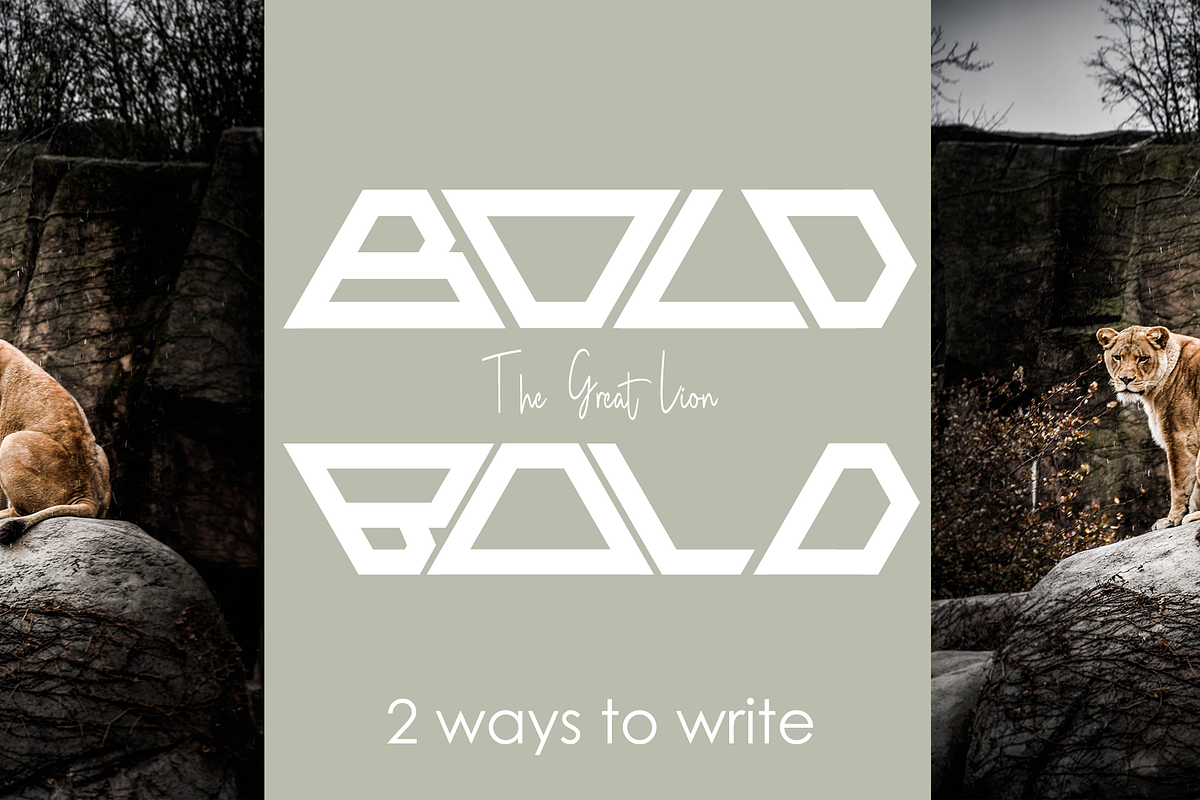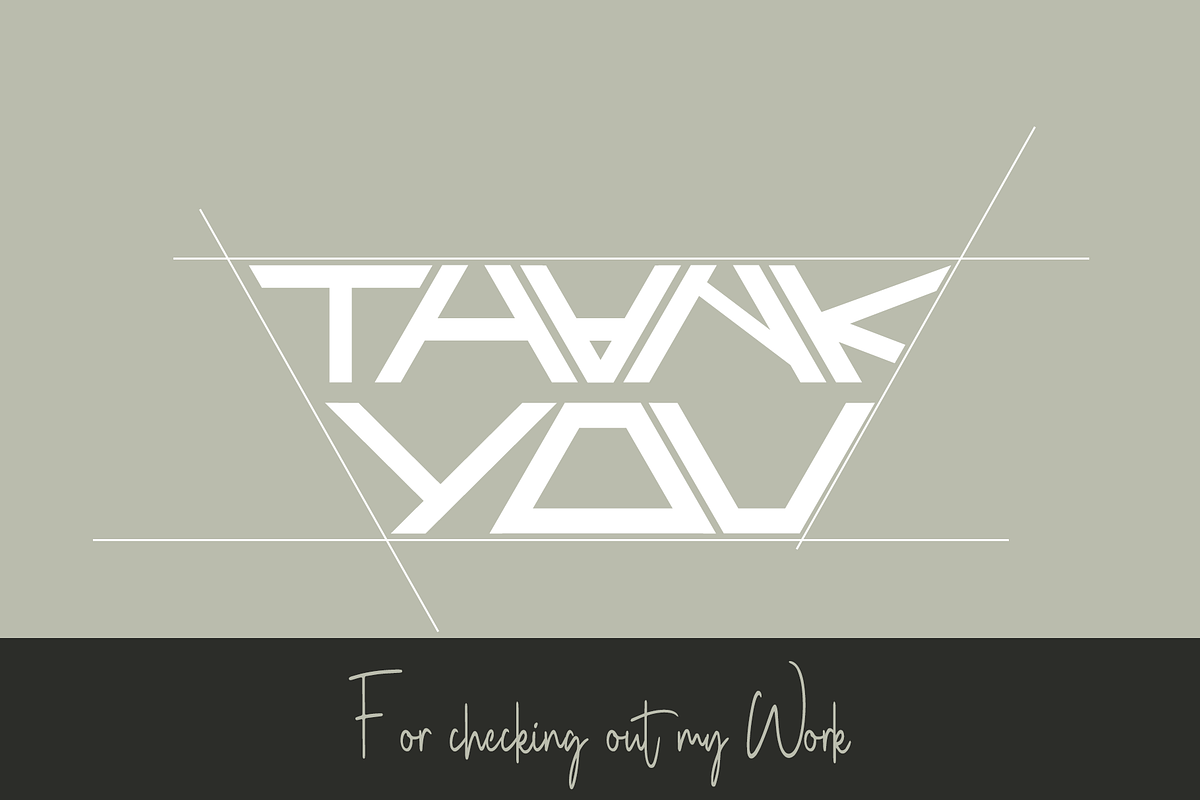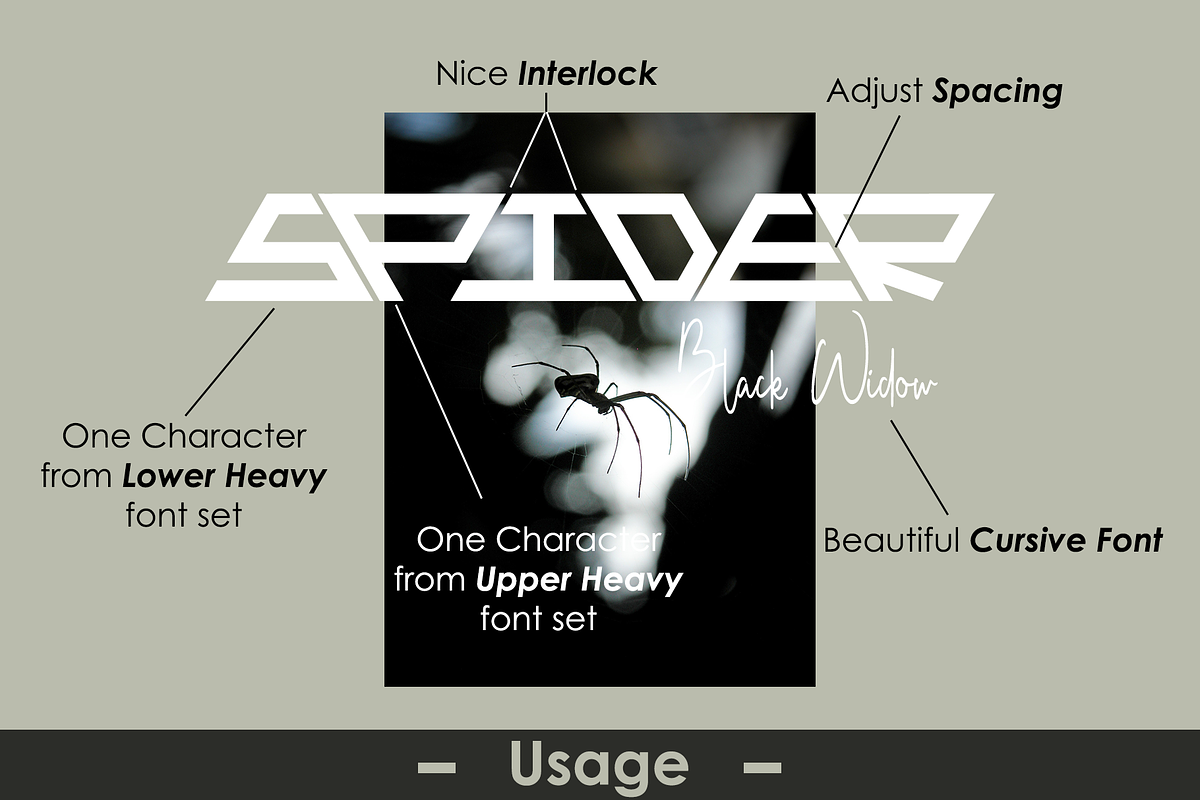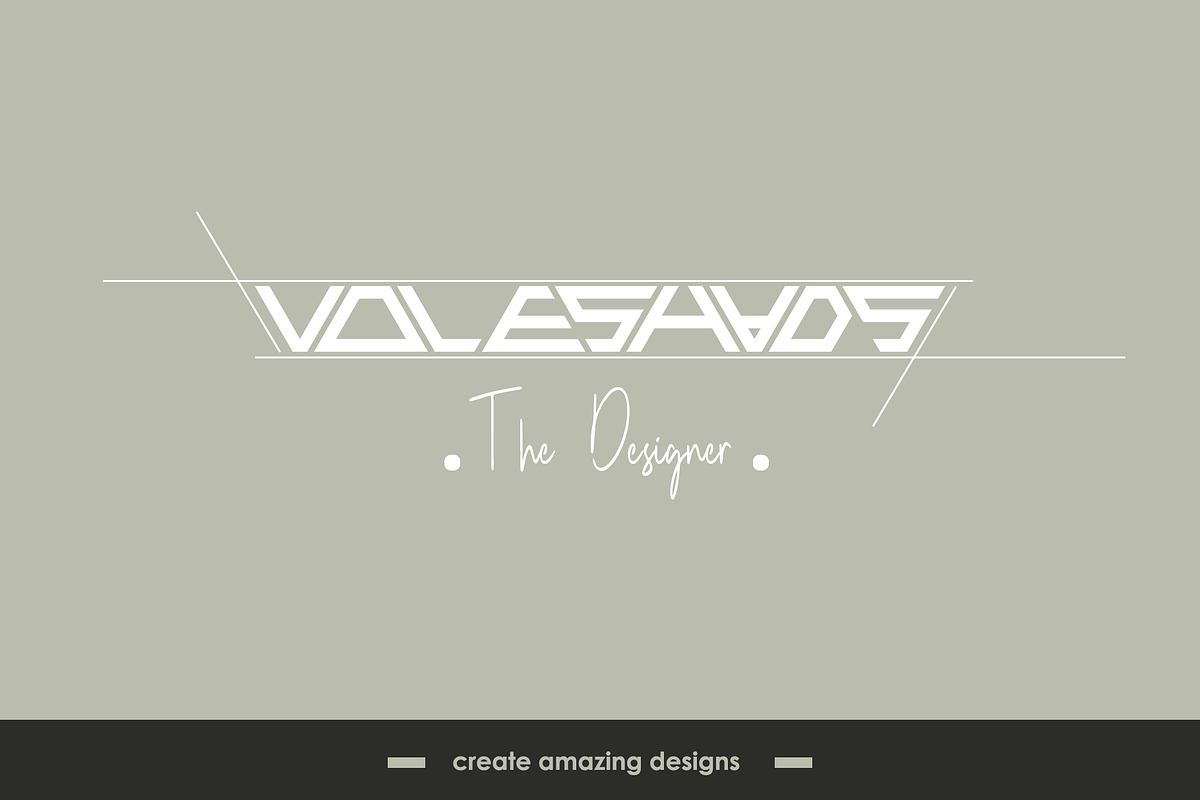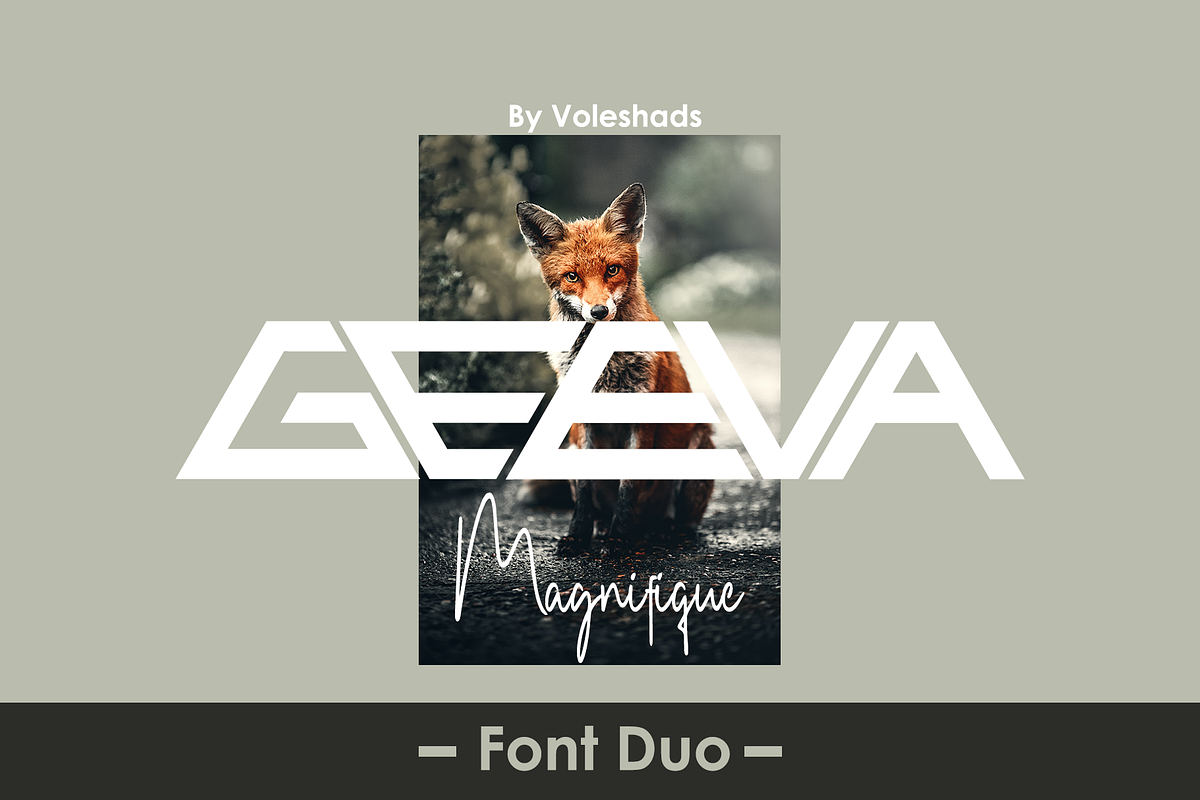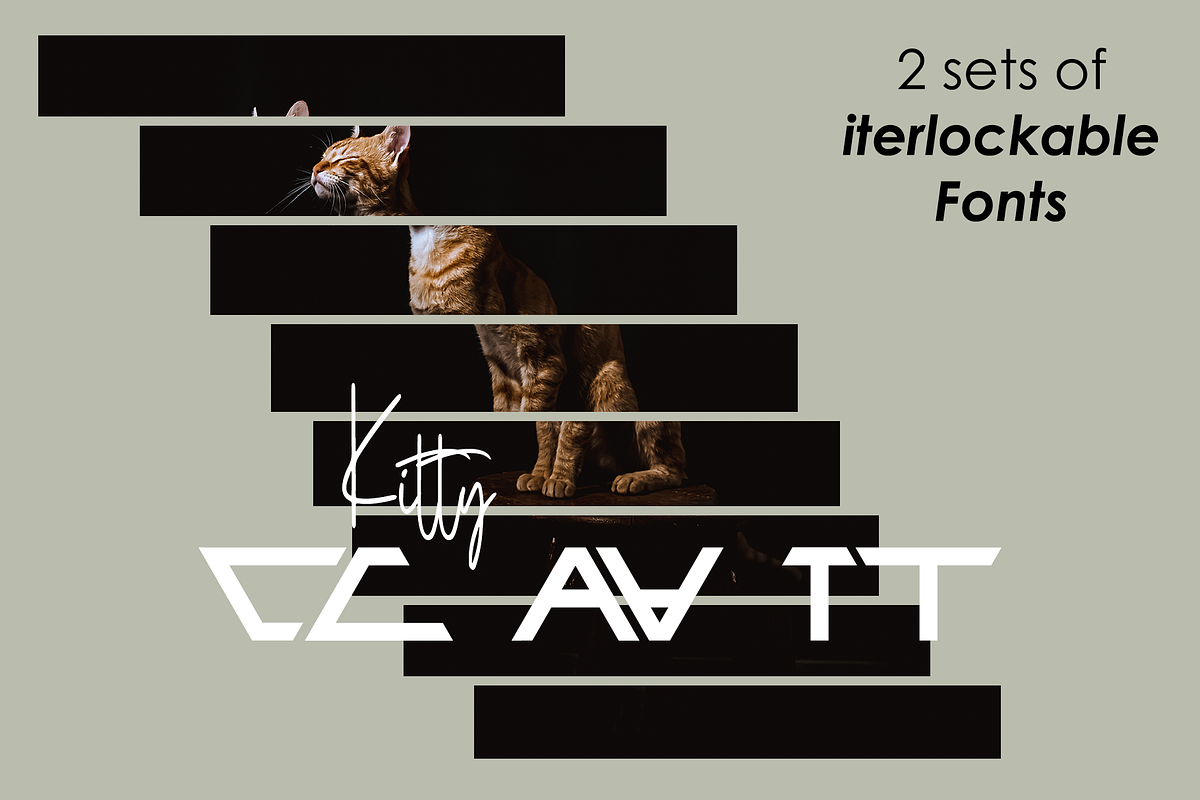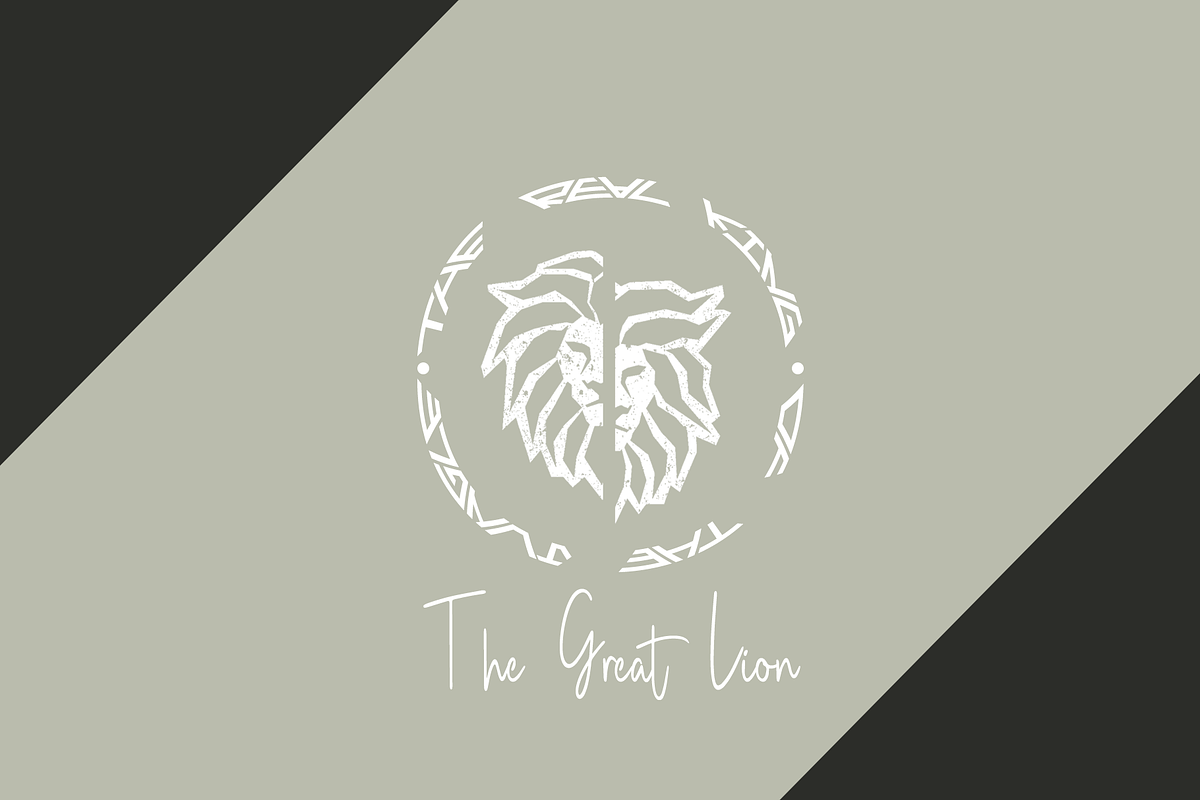
Geeva
Geeva font uses 2 sets of fonts, one upper heavy and the other lower heavy, to create seamless and mesmerizing titles. The characters of the two sets interlock into one another creating a bold look.
A cursive font Moxii is also included to make an amazing font duo.